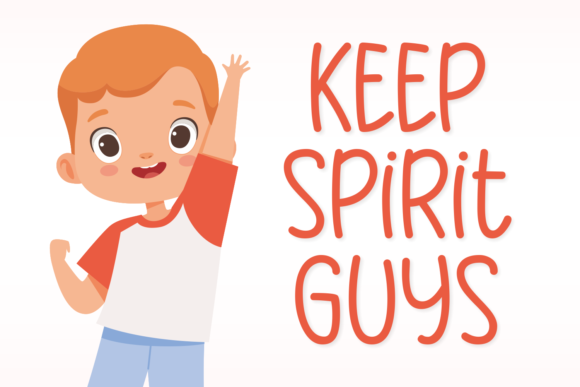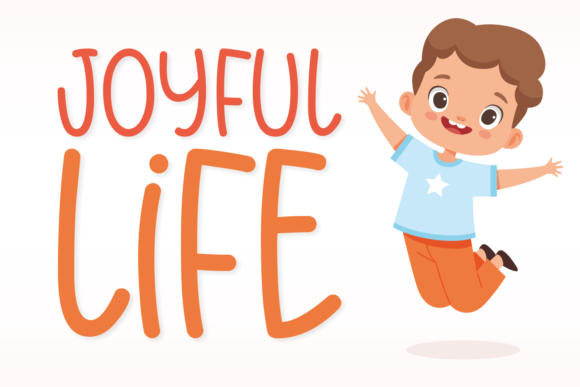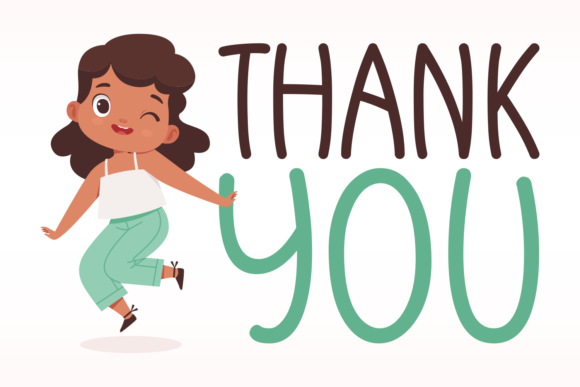
Introduction to Nice and Cooly Font
Do you remember the excitement of creating a DIY craft project as a child? The anticipation of holding a crayon, marker, or paintbrush, and bringing your imagination to life? For designers, that same sense of creativity and joy is what makes a project truly special. And, with the right tools, that magic can come alive in the most delightful ways.
Enter the Nice and Cooly Font, a charming display typeface that’s perfect for designers looking to add a playful touch to their next creative project. This free download is a valuable addition to any design resource, offering a high-quality, transparent background that’s ready to use in your next design.
With its quirky, whimsical feel, the Nice and Cooly Font is ideal for children-themed designs, from nursery room decor to fun quotes and logos. Whether you’re working on a freelance project or just want to add some personality to your personal creations, this font is sure to bring a smile to your face and a touch of magic to your design.
- High-quality design resource with a unique, creative touch, perfect for any project.
- Unique, modern design that’s perfect for branding, logos, and creative projects.
Honest Review: Nice and Cooly Font
As a designer, I’m always on the lookout for unique and versatile design resources to elevate my creative projects. I recently came across the Nice and Cooly Font, and I must say it’s a solid addition to my design arsenal.
One of the standout features of this font is its high-quality design, which makes it perfect for both digital and print projects. The font’s transparent background allows for seamless integration into any design, and its clean lines and modern aesthetic make it an excellent choice for a wide range of creative projects.
Here are some of the things that work well with the Nice and Cooly Font:
- ✨ High-quality design that’s perfect for digital and print projects
- ✨ Transparent background for easy integration into any design
- ✨ Clean lines and modern aesthetic for a professional look
- ⚠️ Limited character set, which may not be suitable for longer texts
- ⚠️ Not as versatile as some other fonts in terms of font styles and sizes
Overall, I’m impressed with the Nice and Cooly Font, and I think it’s a great addition to any designer’s toolkit. Its high-quality design and transparent background make it an excellent choice for a wide range of creative projects, and its free download makes it an excellent design resource for designers on a budget.
Tips for Getting the Most Out of Nice and Cooly Font
1. Use the font with a transparent background to create a modern and clean look.
2. Combine the Nice and Cooly Font with other design elements to create a unique and eye-catching design.
The Nice and Cooly Font is ideal for use in branding materials, social media graphics, and digital marketing campaigns.
Its high-quality design makes it perfect for use in creative projects that require a professional and sophisticated look.